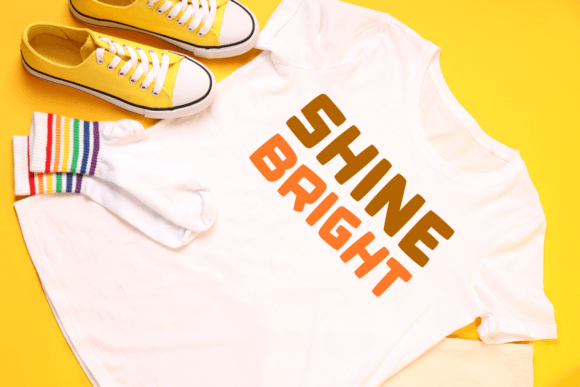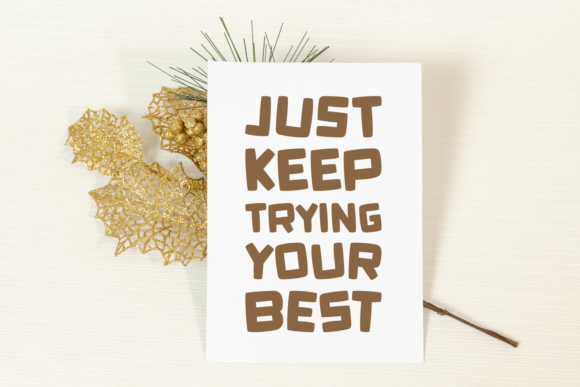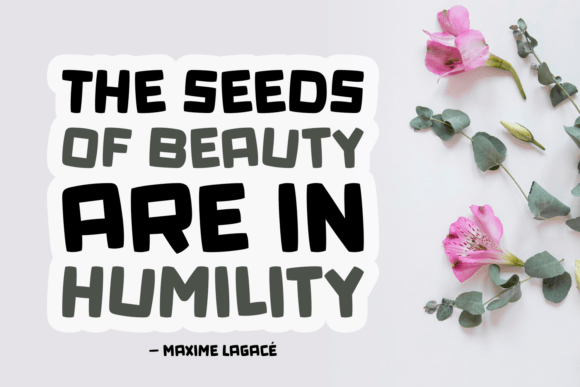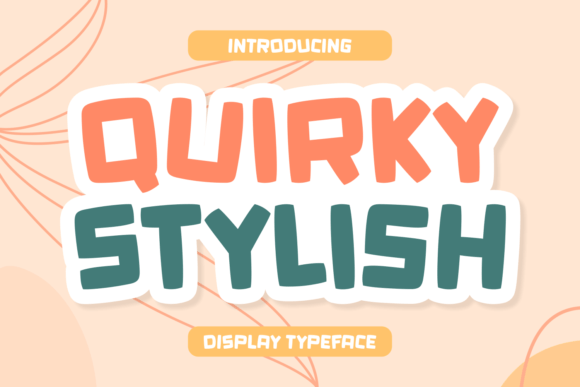
Introduction to Quirky Stylish Font
Quirky Stylish is a thick and playful display font.
These cute, dancing characters are suitable for many of your creative ideas Use them whenever you need to create eye-catching typography for all kinds of projects.
Key Features of Quirky Stylish Font
Why Choose Quirky Stylish Font?
Quirky Stylish Font offers exceptional quality and versatility, making it a valuable addition to your design toolkit. Whether you’re creating for personal projects or commercial use, Quirky Stylish Font delivers professional results.